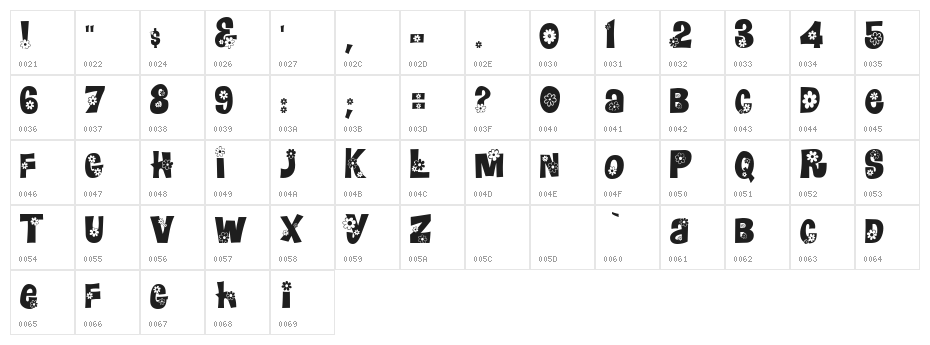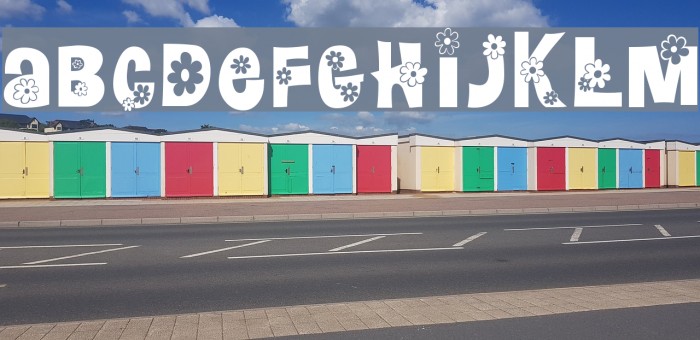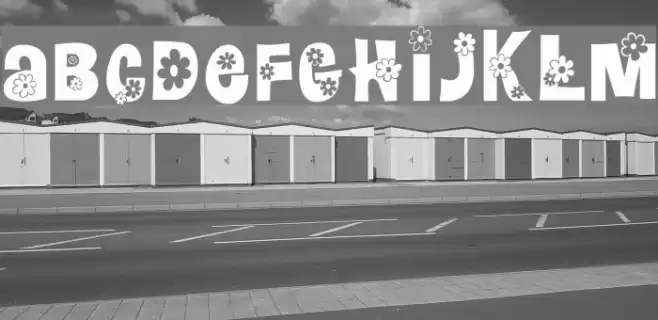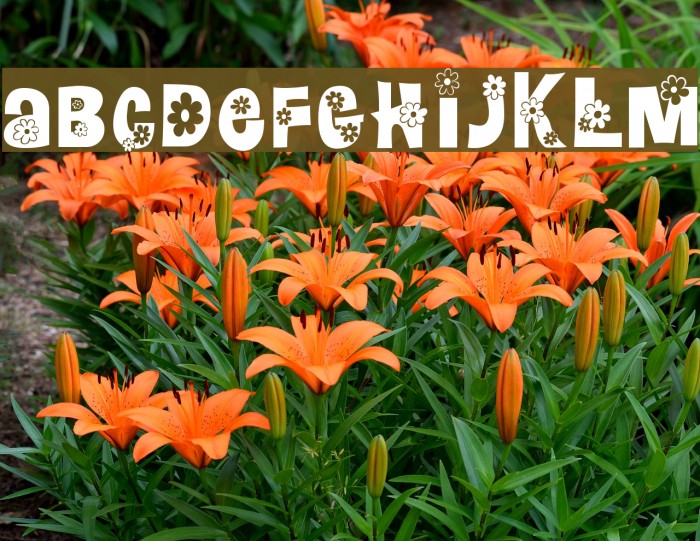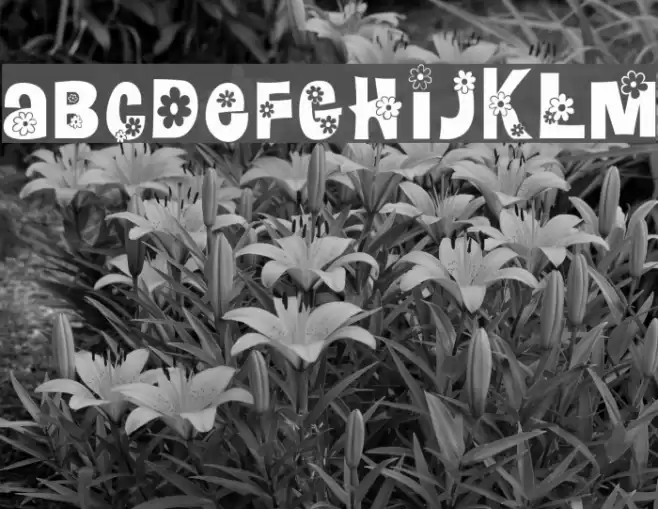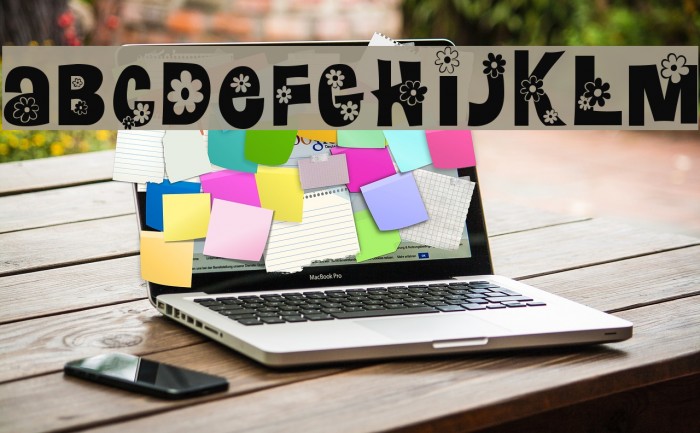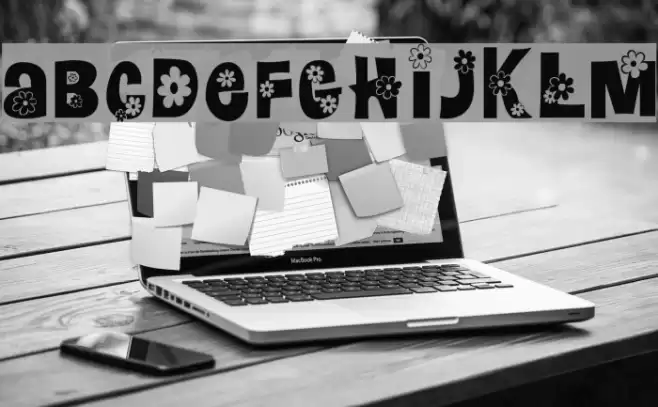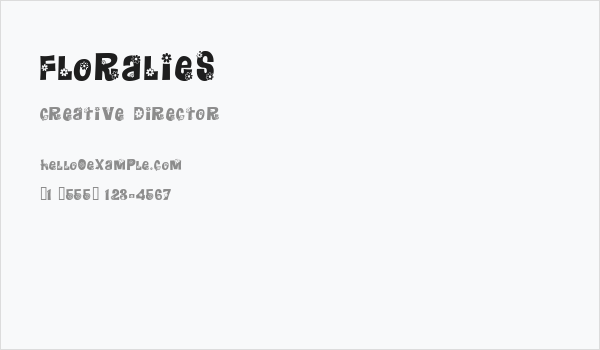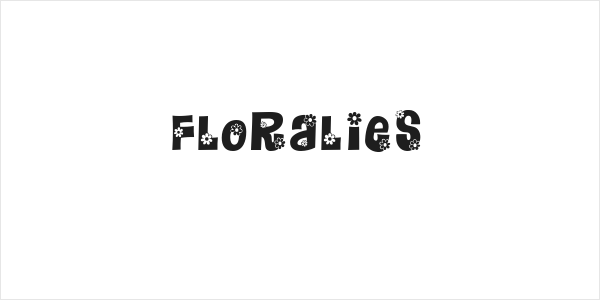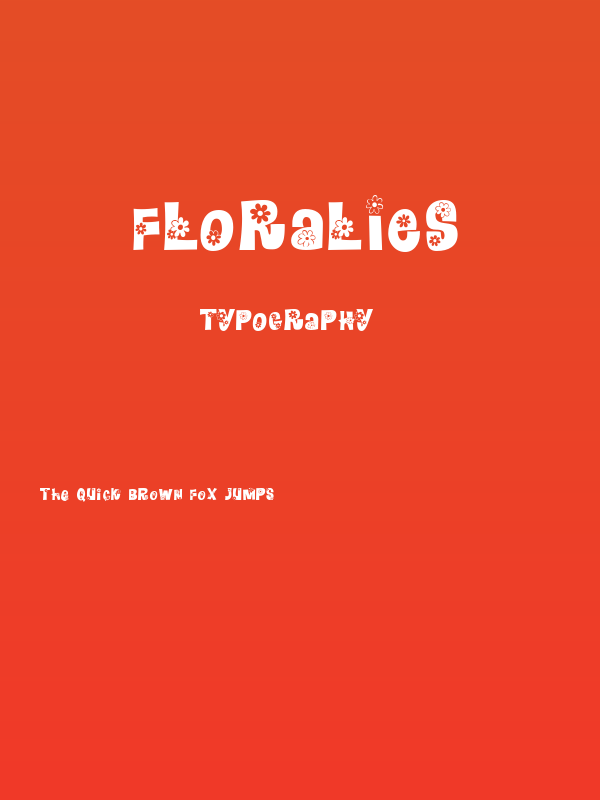
Floralies Font
Floralies Description
This playful and decorative font features bold, chunky letters adorned with floral motifs, creating a whimsical and cheerful appearance. The characters are predominantly uppercase, with a consistent use of floral embellishments that add a unique touch to each letter and number. The style is reminiscent of retro or vintage designs, making it ideal for projects that require a fun and lively aesthetic. The font's boldness ensures readability while the floral elements provide an artistic flair, perfect for creative and informal applications.
| Proposed Projects | This font is perfect for children's book covers, greeting cards, event posters, and any project that benefits from a whimsical and decorative style. |